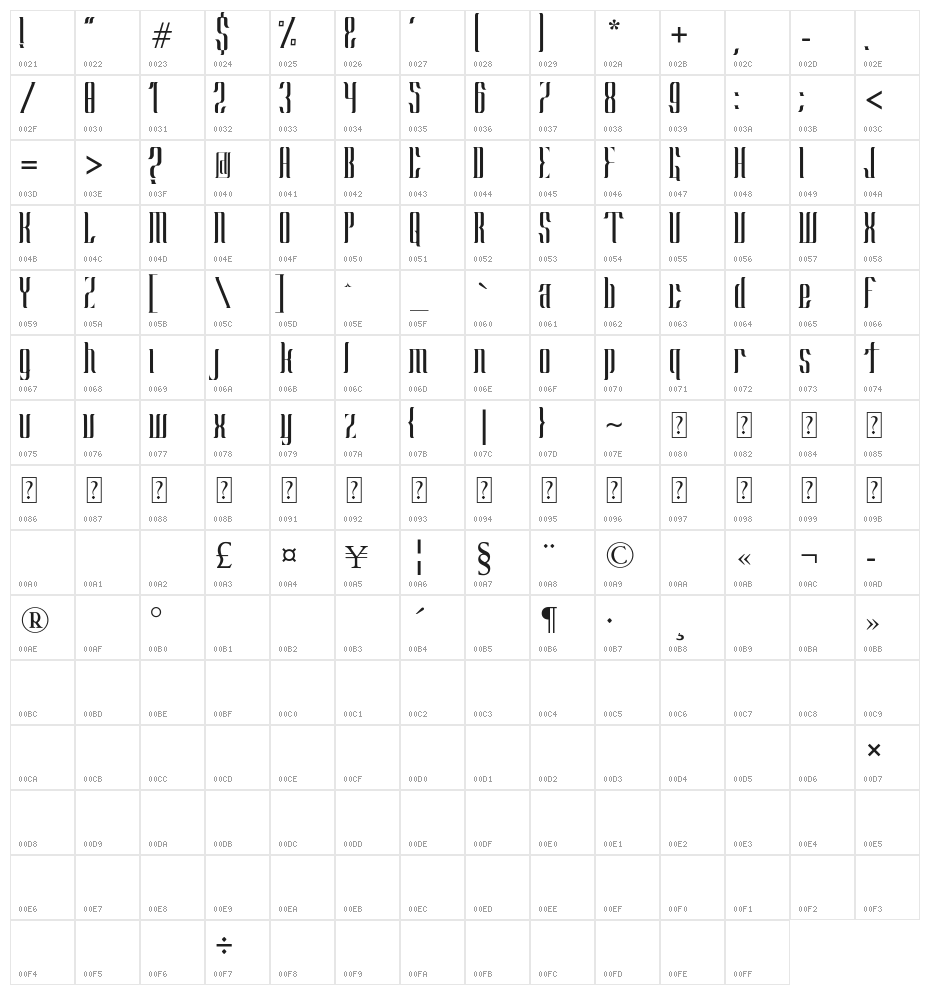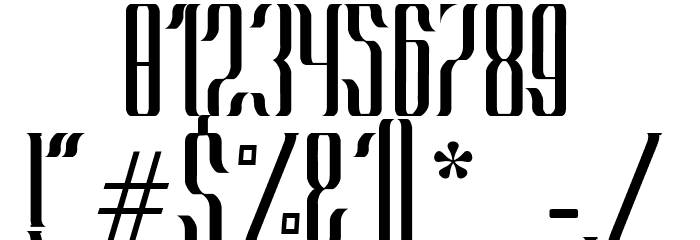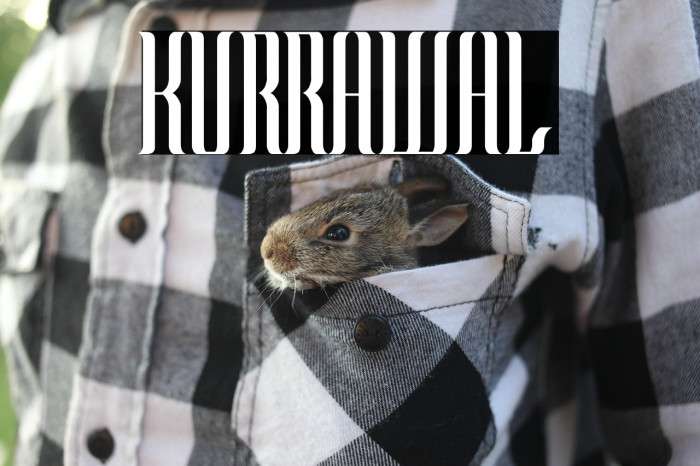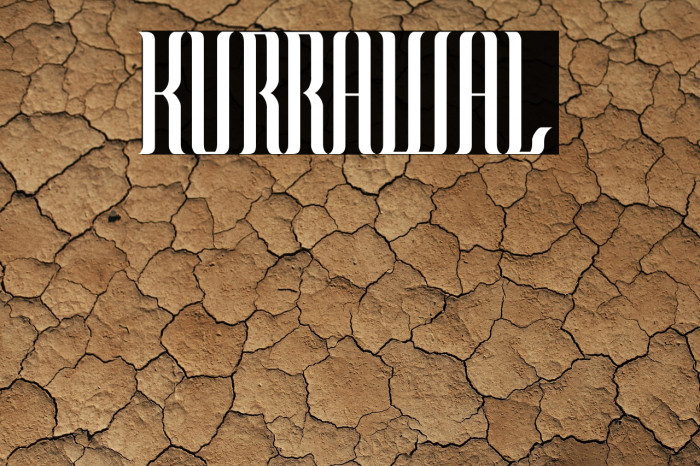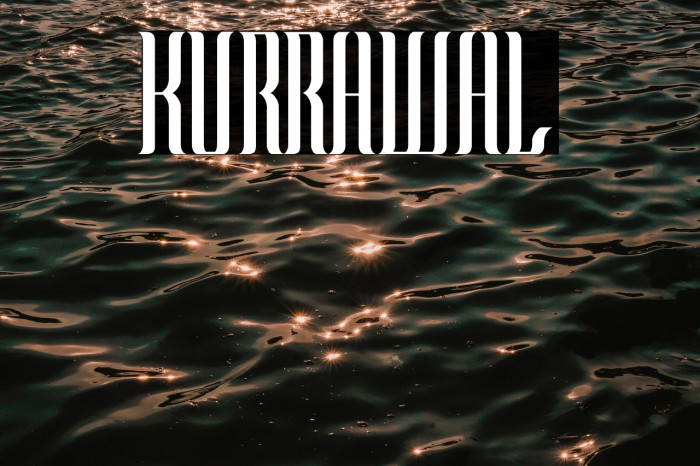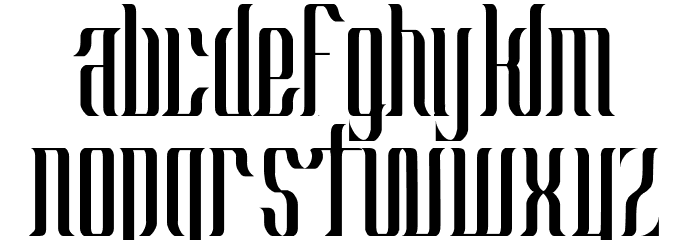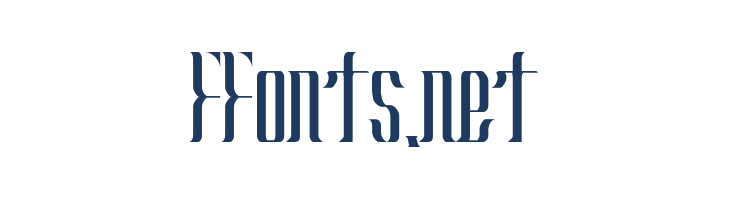
KURRAWAL Font
KURRAWAL Description
This font features a bold and striking design with elongated, narrow characters that create a dramatic and impactful appearance. The vertical emphasis and sharp angles give it a modern and edgy feel, while the consistent stroke width maintains a clean and structured look. The uppercase and lowercase letters are distinct yet harmonious, and the numerals and special characters are crafted to match the overall aesthetic. This font is ideal for making a bold statement and capturing attention.
| Proposed Projects | Ideal for posters, branding, and headlines where a strong visual impact is desired. |